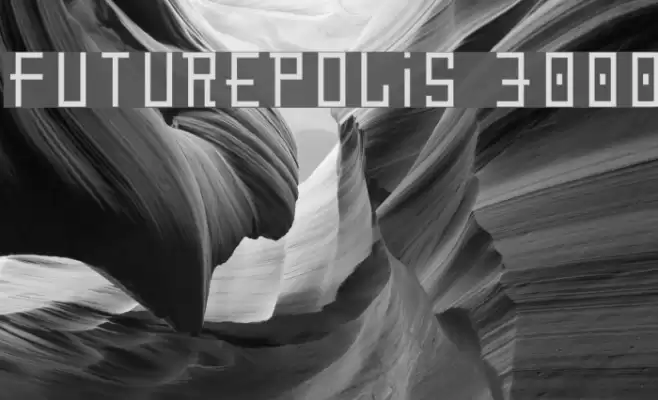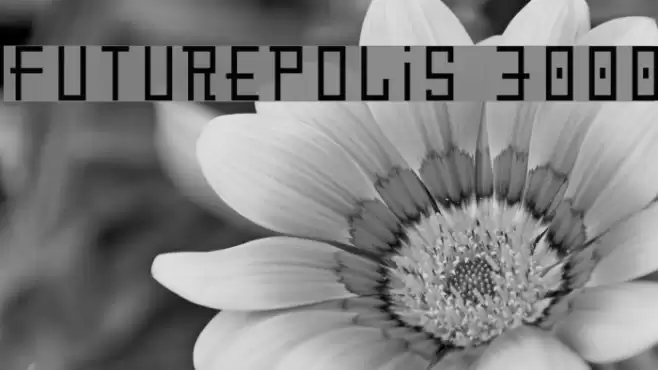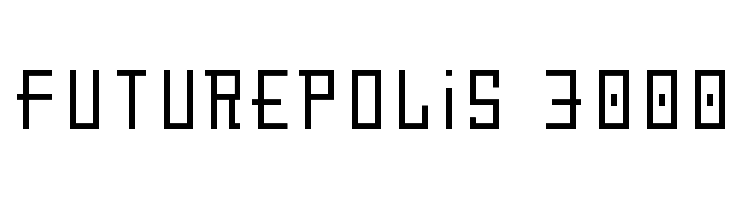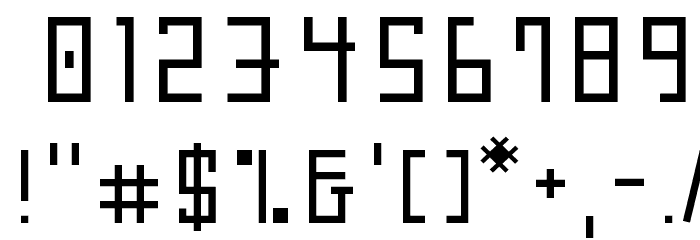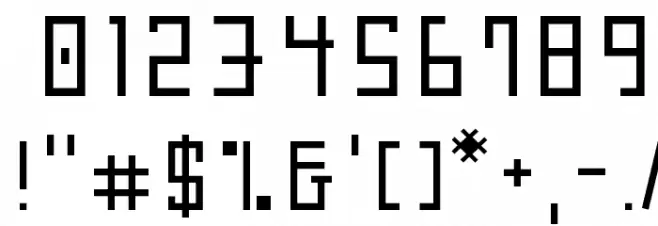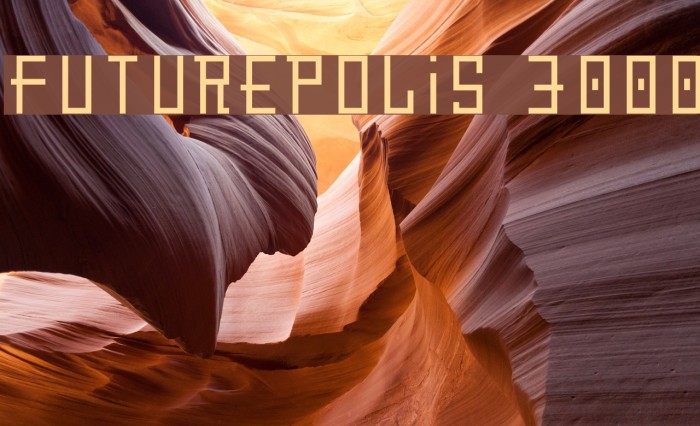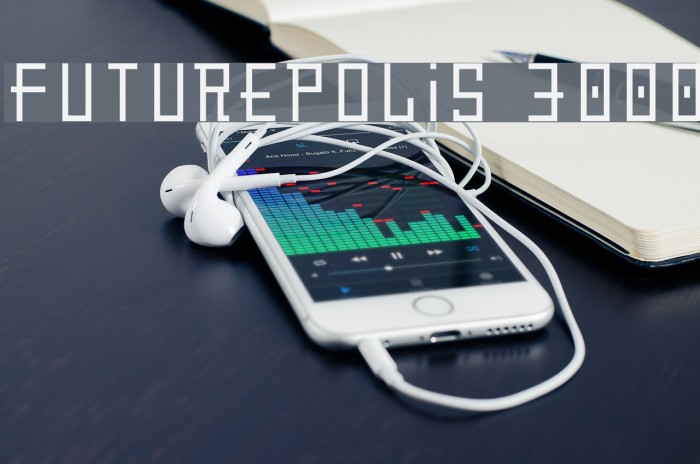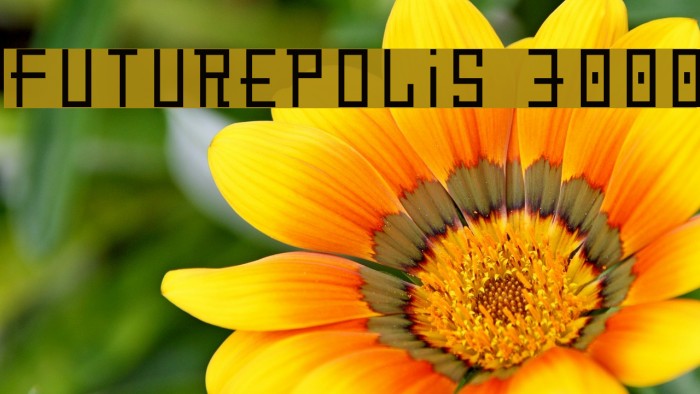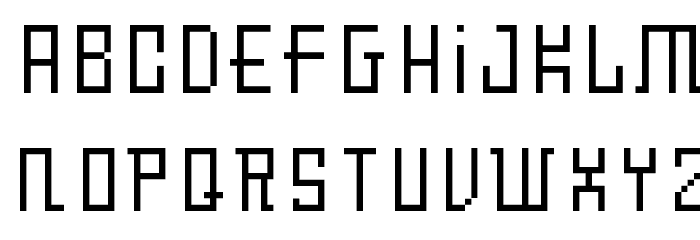
Futurepolis 3000 Font
Futurepolis 3000 Description
This font features a futuristic and geometric design, characterized by its blocky and angular letterforms. The characters are constructed with a consistent stroke width, giving it a monospaced appearance. The uppercase and lowercase letters maintain a uniform height, contributing to a clean and structured look. The numerals and special characters follow the same design principles, ensuring a cohesive visual style across all glyphs. This font's distinct, tech-inspired aesthetic makes it ideal for projects that require a modern and digital feel.
A futuristic, geometric font with a monospaced, tech-inspired design from Uncategorized fonts.
- Proposed Projects: Ideal for technology branding, digital interfaces, video game design, and futuristic-themed posters.
- Use Case: Headlines, Logos, Digital interfaces